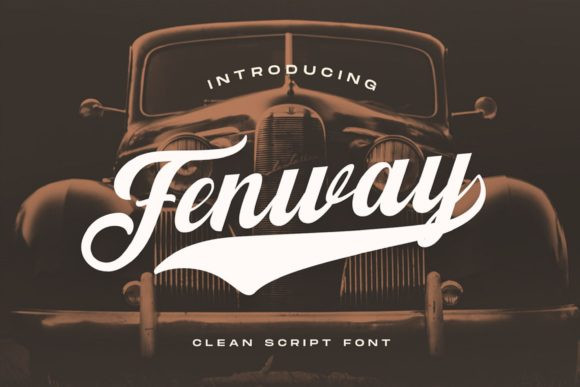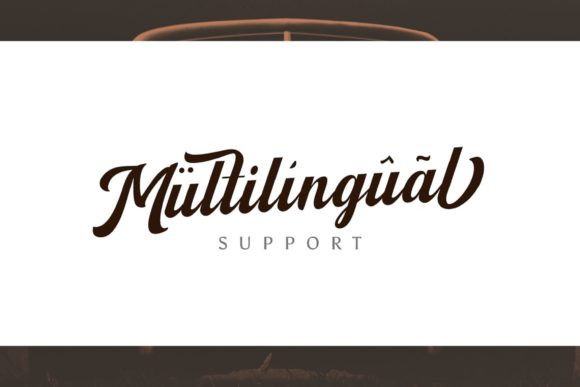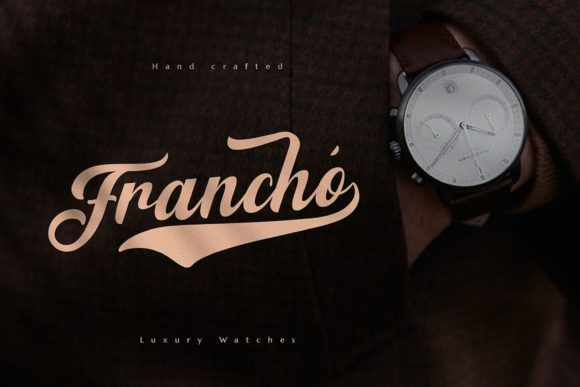
Fenway Font
Fenway is a unique and flowing handwritten font, characterized by a vintage style. Fall in love with its incredibly versatile style and use it to create spectacular designs!